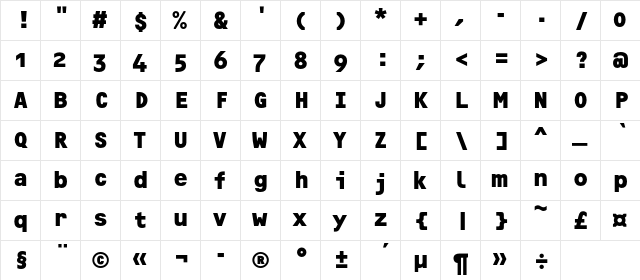
OCRF-BoldOSFC Regular
Design Context for OCRF-BoldOSFC Typeface
OCRF-BoldOSFC takes a measured approach to typography — its balanced proportions and neutral character make it a reliable workhorse for both digital and print work. The heavy weight commands attention and anchors typographic hierarchies.